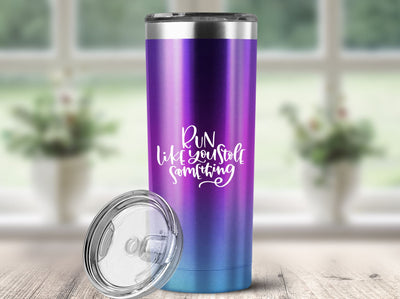
Fitness SVG | Run Like You Stole Something | Running SVG
If you're into fitness this funny SVG featuring Run Like You Stole Something is the perfect fitness SVG file for your crafty collection. Even better, design tanks, water bottles and towels for your gym!